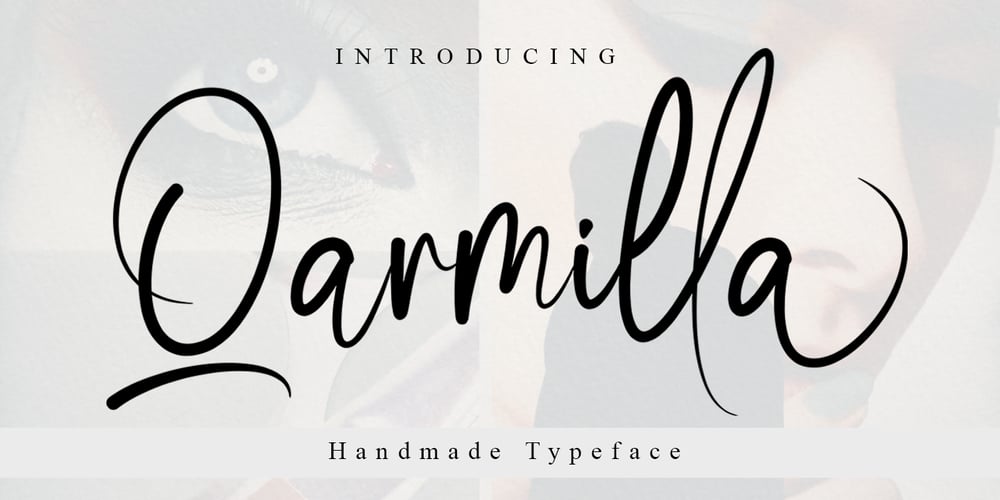
Qarmilla
Qarmilla Font Family was designed by Putri Indira and published by MonoLIne Calligraphy. Qarmilla contains 1 styles and family package options. Qarmilla Font is interesting because the typeface is pleasing to the eye, clean, feminine, sensual, glamorous, simple and very easy to read, because there are many fancy letter connections. I also offer a number of decent stylistic alternatives for multiple letters. Classic styles are very suitable to be applied in various formal forms such as invitations, labels, restaurant menus, logos, fashion, make up, stationery, novels, magazines, books, greeting / wedding cards, packaging, labels or all kinds of advertising purposes . . .Qarmilla has alternative characters, including support for multiple languages. With OpenType features with an alternative style and elegant binding. The OpenType feature does not work automatically, but you can access it manually and for the best results required for your creativity in combining these Glyph / Character variations.Font Features :I heavily use programs that support OpenType features and the Glyphs panel such as Adobe Illustrator, Adobe Photoshop CC, Adobe InDesign, or CorelDraw, so that you can view and access all the variations of the Glyph.